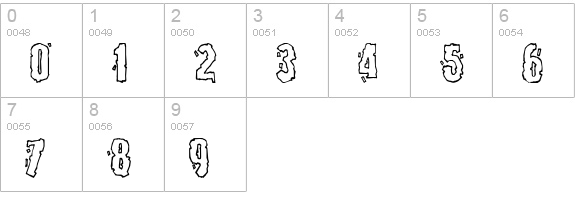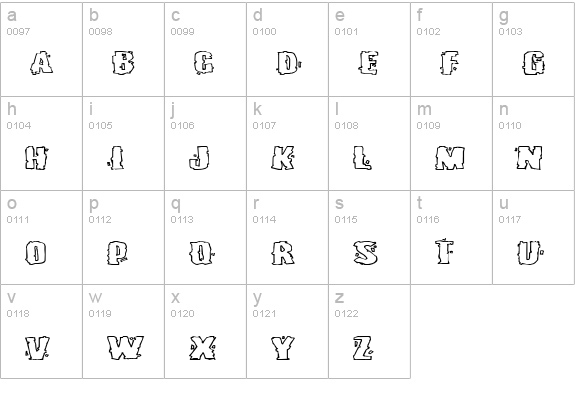
Burlesque Font Details
Burlesque font is a captivating and alluring typeface that exudes vintage charm and theatrical flair. With its ornate, decorative elements and elegant serifs, this font is perfect for adding a touch of old-world glamour to your designs. Whether you're creating invitations, posters, or branding materials, Burlesque font will make a bold statement and leave a lasting impression. Best of all, Burlesque font is available for free download at FontsMarket.com. This means you can easily access this stunning typeface to elevate your projects without any cost. Embrace the beauty and sophistication of Burlesque font in your designs today!